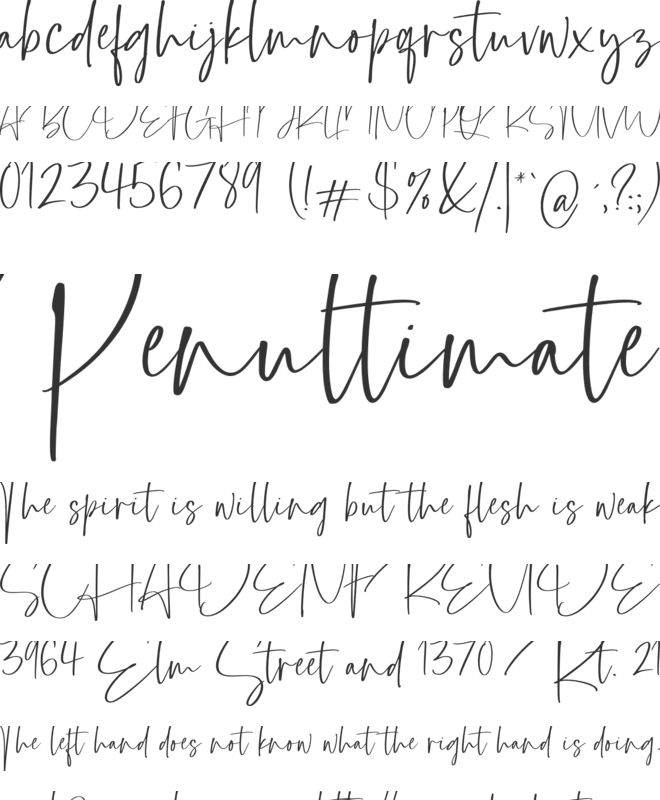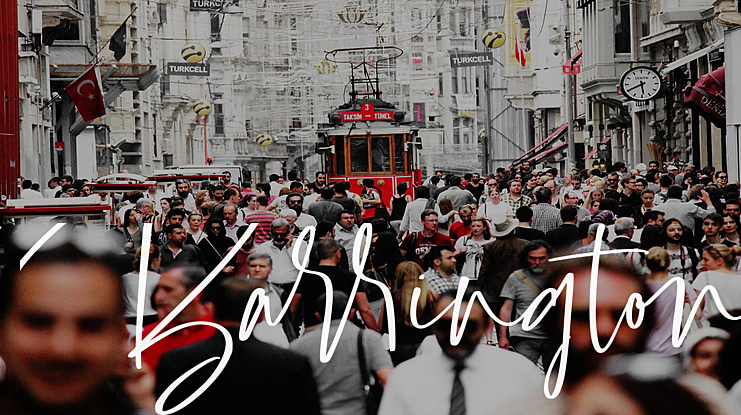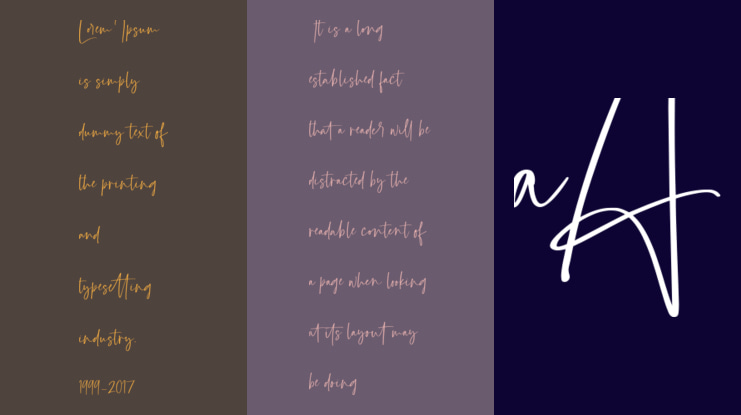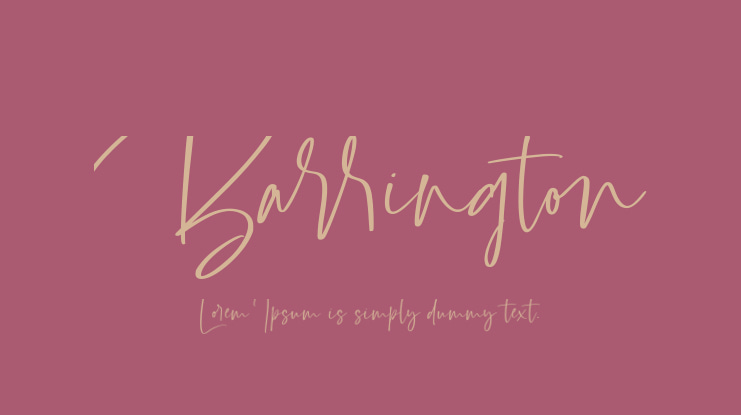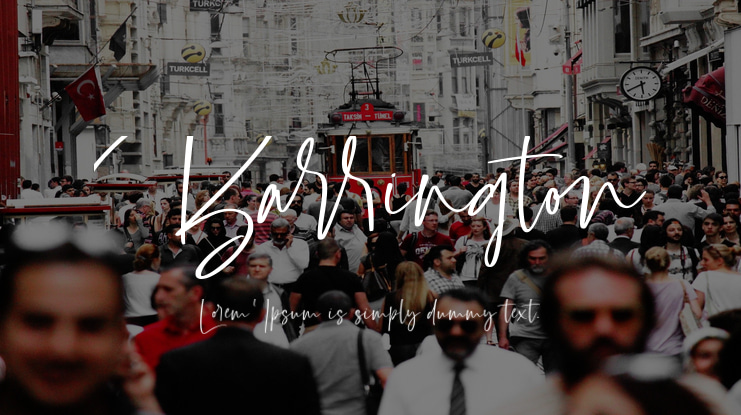
Barrington Font
A font with relaxed style and carries the impression of luxury. Barrington comes with 64 ligatures to give a natural impression, Uppercase Alternates to give different styles, and also ending swash. To access ending swash you only need to add the number ‘1’ at the and of the word. for example if you want to write ‘Barrington’ with the swash ending, you just have to write ‘Barrington1’, and that’s it. Very simple.
Barrington is perfect for branding & logo projects, also suitable for Product Packaging, Titles on articles or book covers, Stationary, and much more.